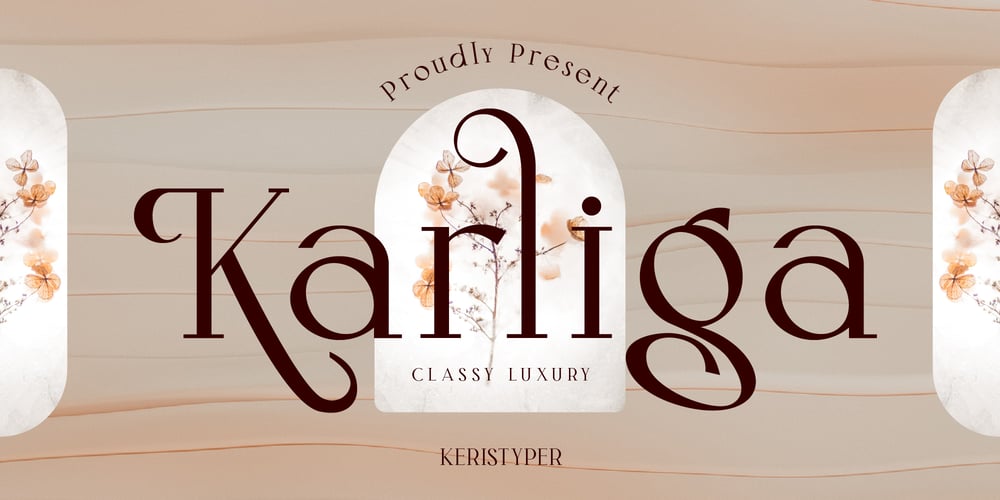
Karliga
Karliga font
Karliga Font Family was designed by Tezar Tantular and published by Keristyper Studio. Karliga contains 1 styles and family package options. Karliga is a modern vintage serif typeface. This font is good for logo design, Social media, Movie Titles, Books Titles, short text even long text letters, and good for your secondary text font with sans or serif.**Featured:*** Standard Uppercase & Lowercase* Numeral & Punctuation* Multilingual : ä ö ü Ä Ö Ü ß ¿ ¡* Alternate & Ligature* PUA encodedWe recommend programs that support the OpenType feature and the Glyphs panel such as Adobe applications or Corel Draw. so you can use all the variations of the glyphs.Hope you enjoy our fonts!